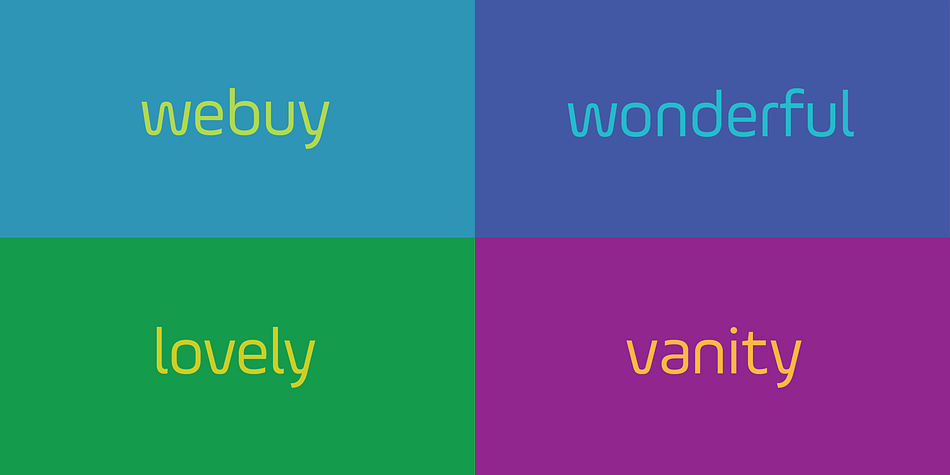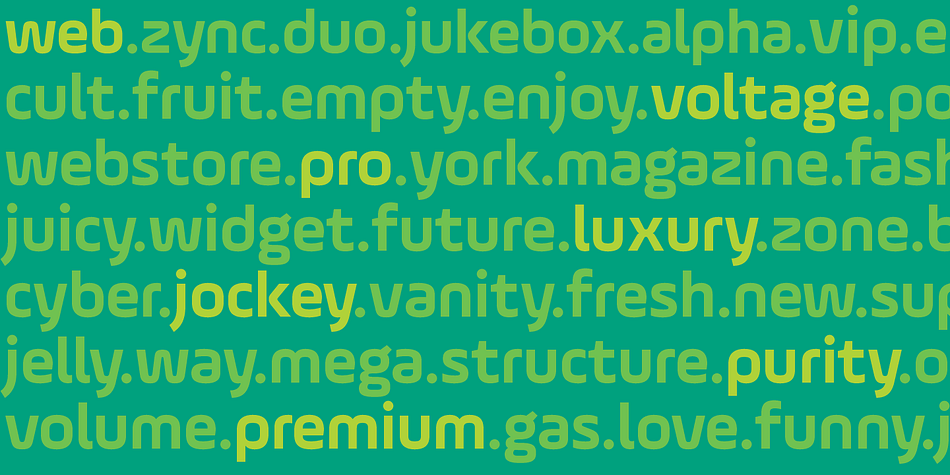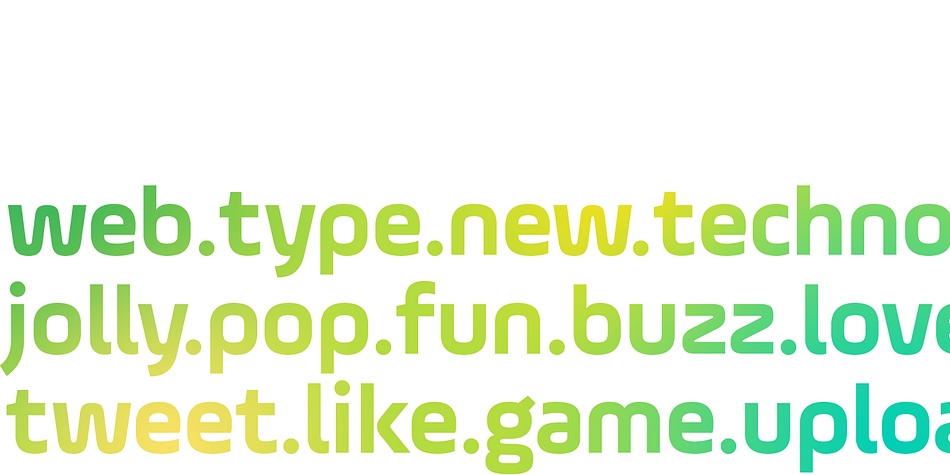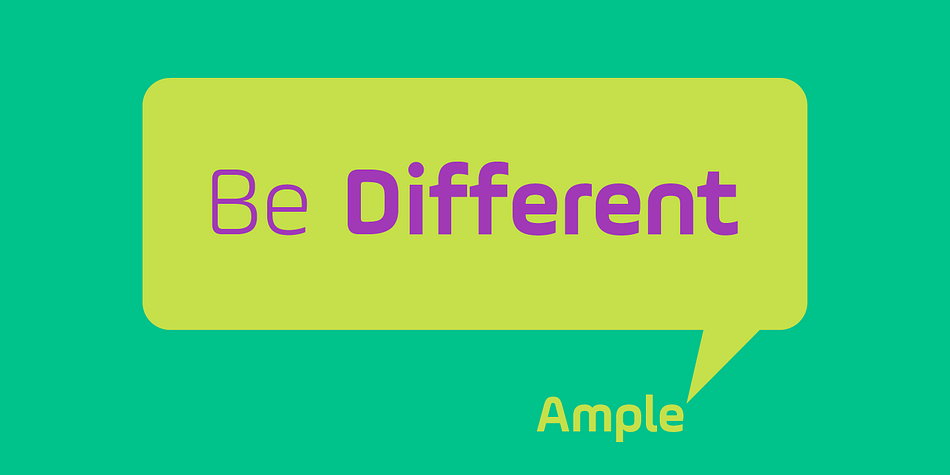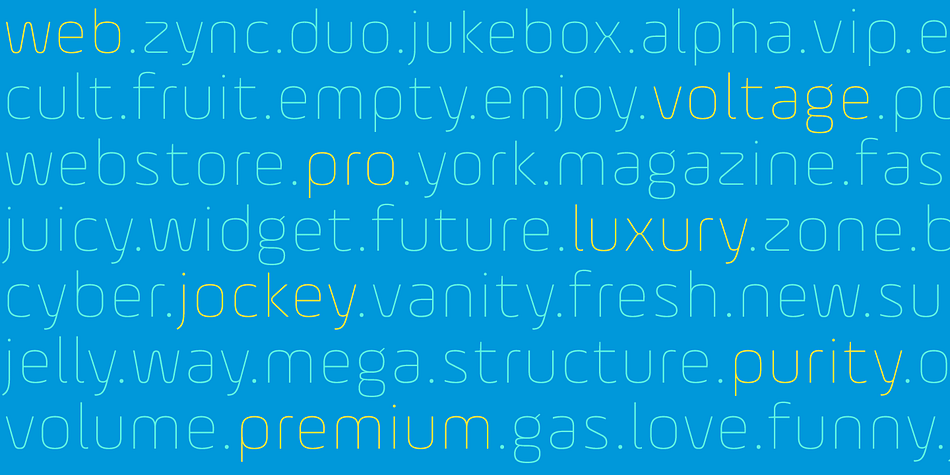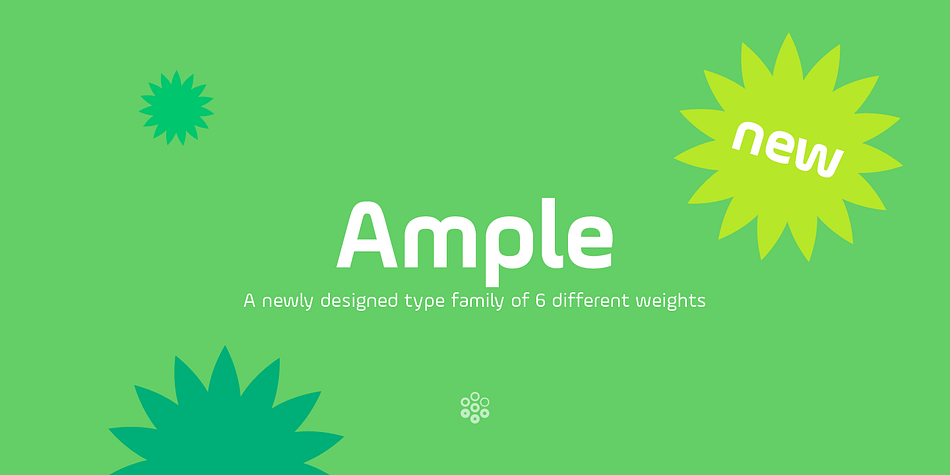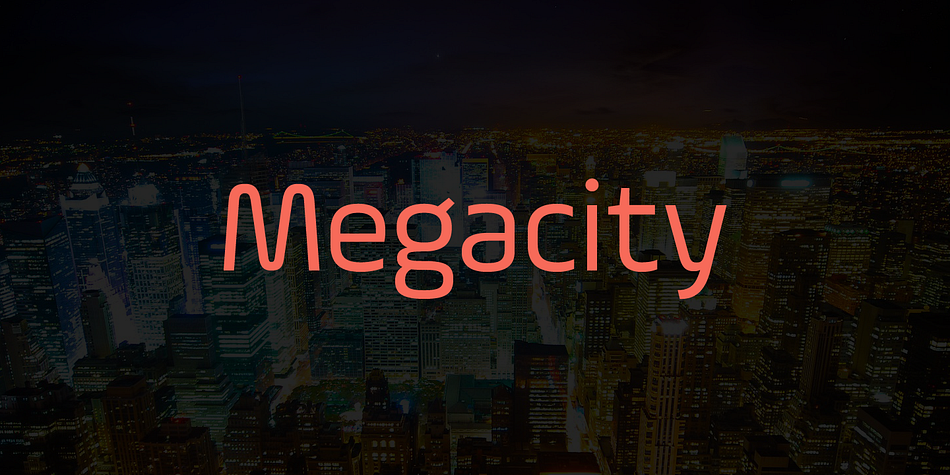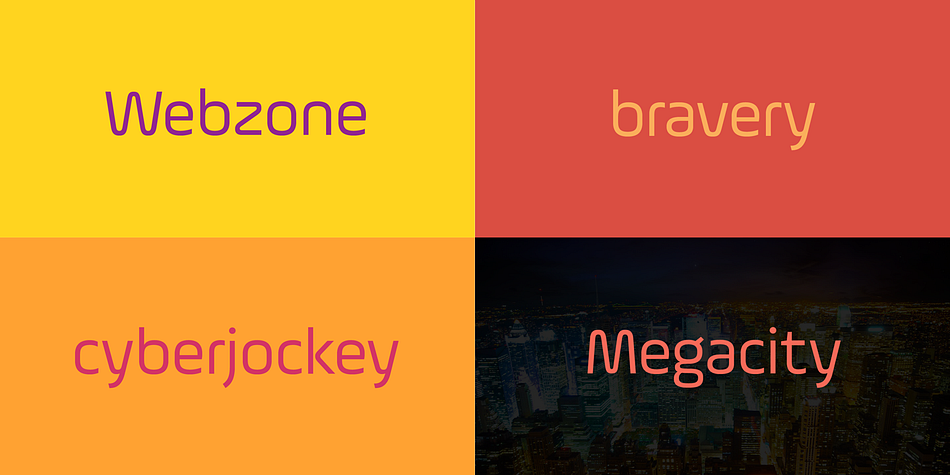
Ample is a sans serif font family. This typeface has six styles and was published by SoneriType.
Ample is a display type family, optical mono linear and a bit squarish in nature. It has smooth curve instead of the sharp angle formed by the junction of two strokes, which is a prominent feature of its design.
It has been designed to be a little eye-catching yet legible. It has clear and distinguishable letterforms, which helps to elaborate and emphasis the message. It is graphically strong and command viewerís attention. The overall appearance of type is suitable in setting it as heading, title, headline, etc.
The type family consists of six weights viz. Thin, ExLight, Light, Regular, Medium and Bold. Considering the nature of this type family, italics have been excluded.
Ample is designed by Aakash Soneri in a period between 2013 and 2014.